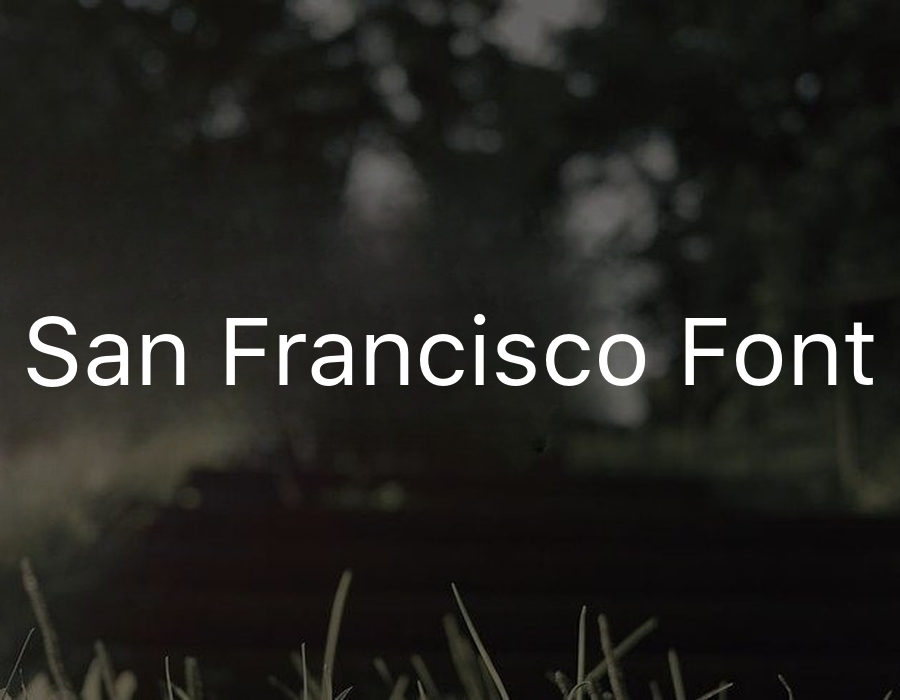
About San Francisco Font
San Francisco is Apple's bespoke system font family, created to deliver exceptional legibility and consistency across the entire ecosystem of Apple devices. It comes in two main variants: SF Pro for macOS, iOS, and iPadOS, and the denser SF Compact for watchOS. The font features a neutral, geometric sans-serif design with open forms, a large x-height, and dynamic tracking that adjusts automatically for optimal readability at any size. Its extensive family of weights and widths, coupled with advanced typographic features, makes it a versatile and highly functional cornerstone of Apple's modern human interface design language.